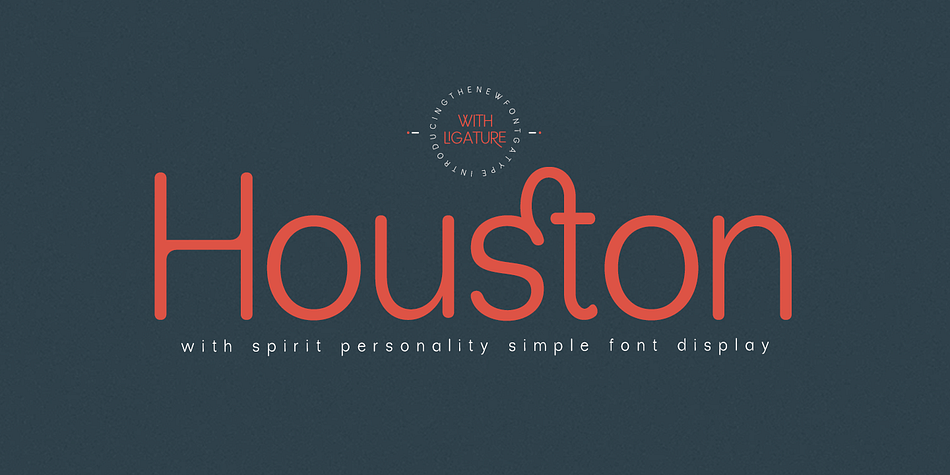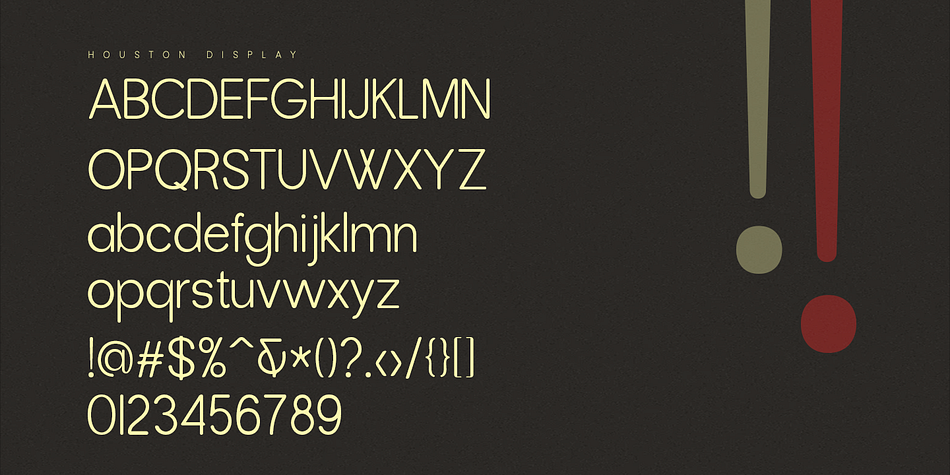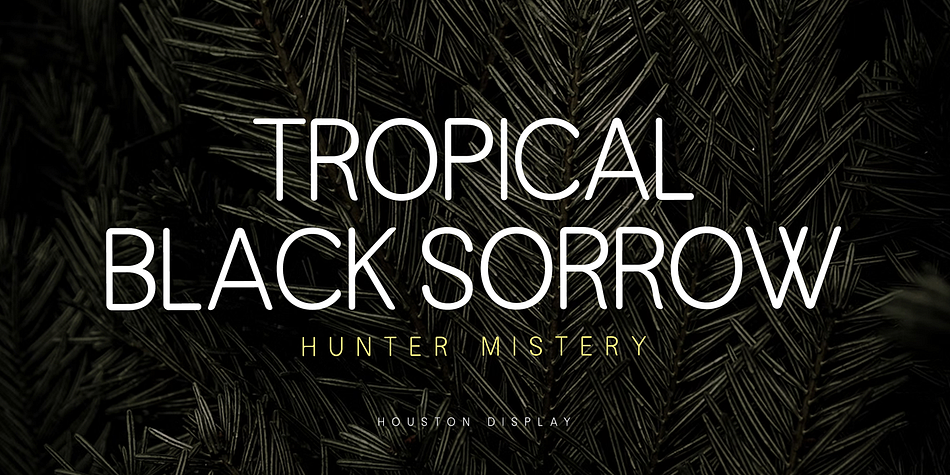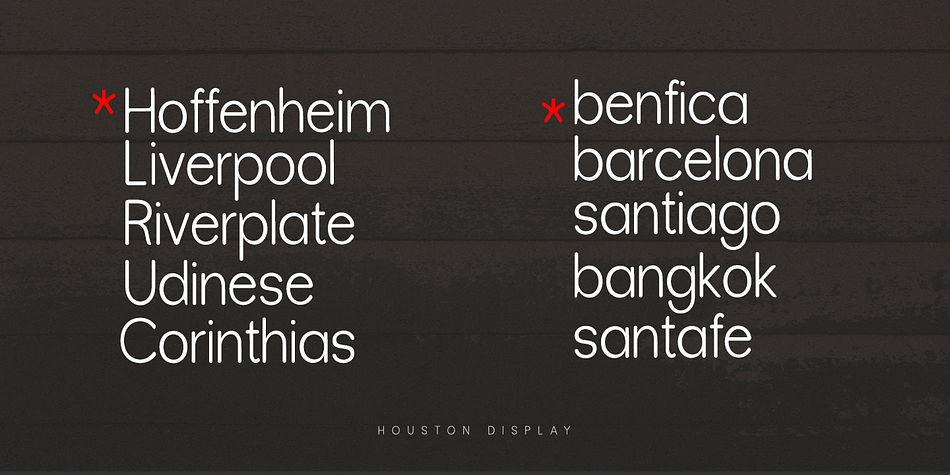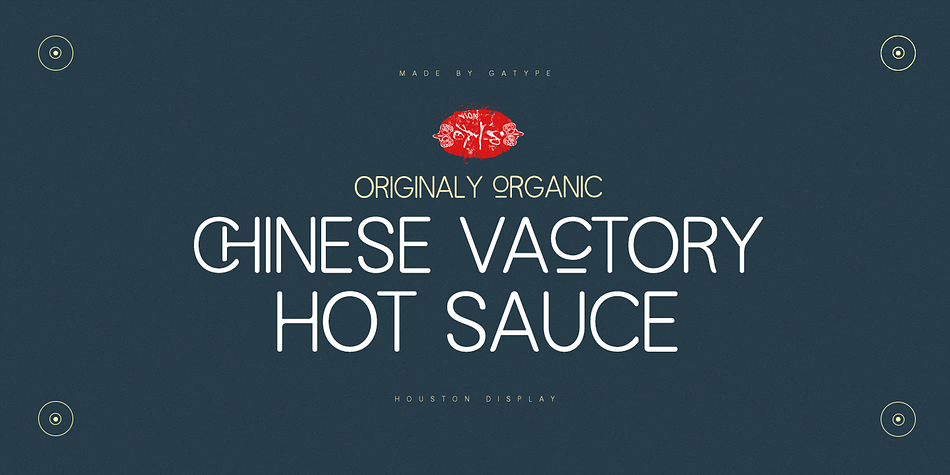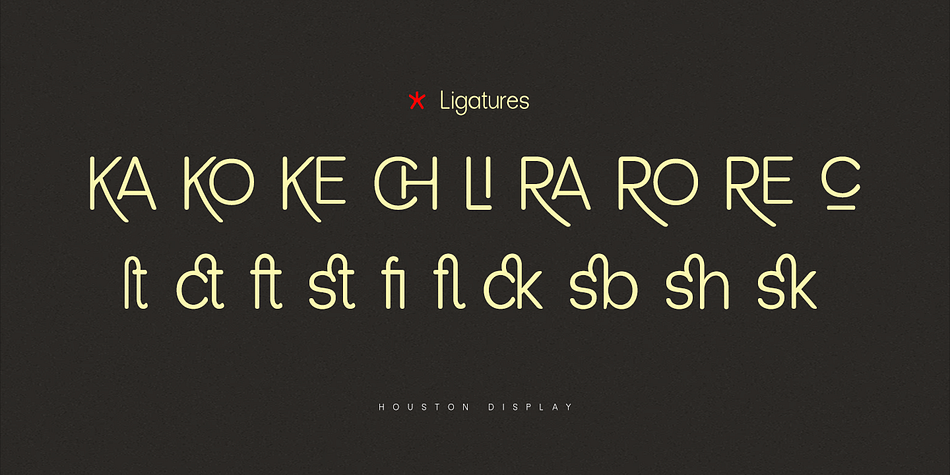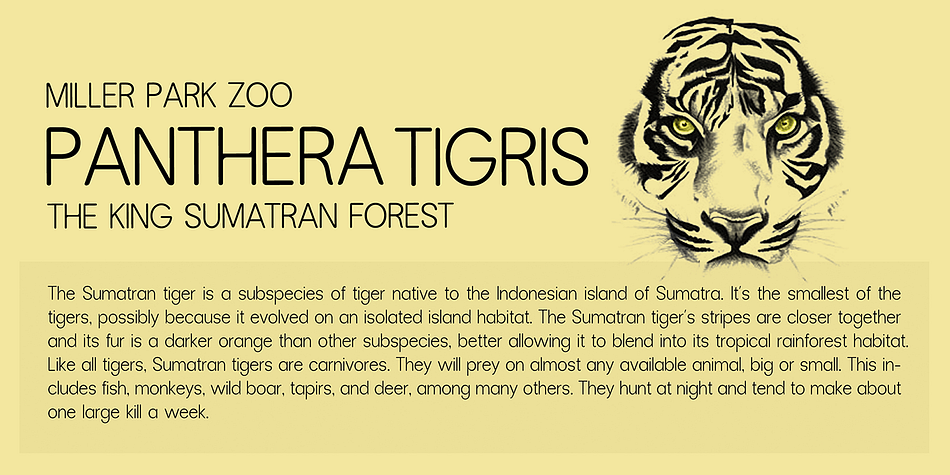
Houston
Houston is a sans serif font family published by Gatype.
Best collection of display fonts, don’t miss it: The Houston font is vintage elegant, these typefaces are truly made for one another. They work very well to give you the perfect design label you have designed. It’s perfect for Logo, Advertising, Apparel Design, Label, Signage, Etc.